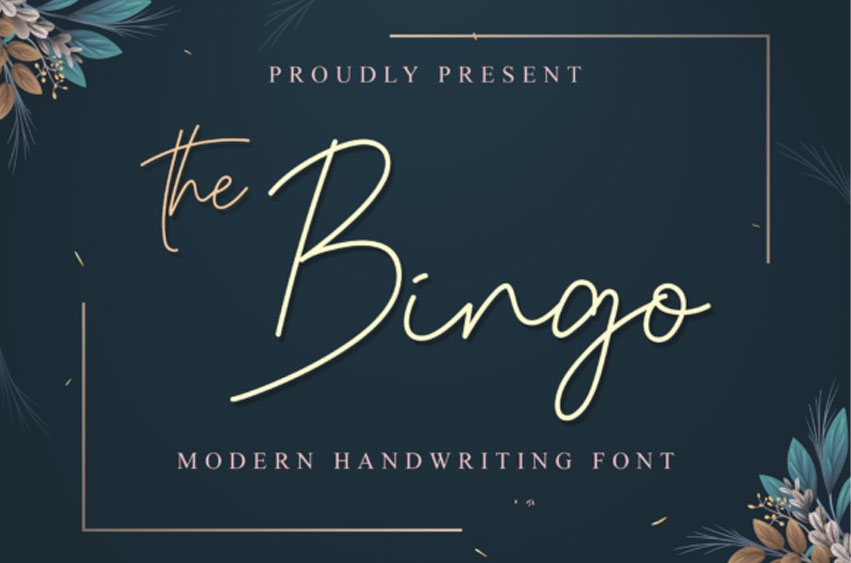
The Bingo Font is a thin and flowing handwritten font, described by an elegant touch, perfect for your favorite projects.
This gentle font will look gorgeous on a variety of design ideas. It will add a joyful and romantic touch to each of your projects!